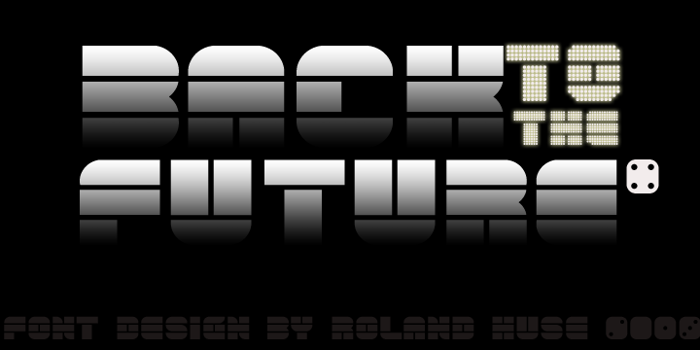
back to the future 4 Font
BACK TO THE FUTURE 4 is a Techno-Sci-Fi style font, for flyers or posters.Made out of simple shapes.
BTTF trilogy is one of my all time favourite movie, so I thought to myself, If would be great to see a 4th episode with this kind of title and lettering
Thanks! I just checked FontStruct, well, I havent heard of that before. But I think I had kind of the same idea. I made it in Illustrator using shapes and shapebuilder tool.